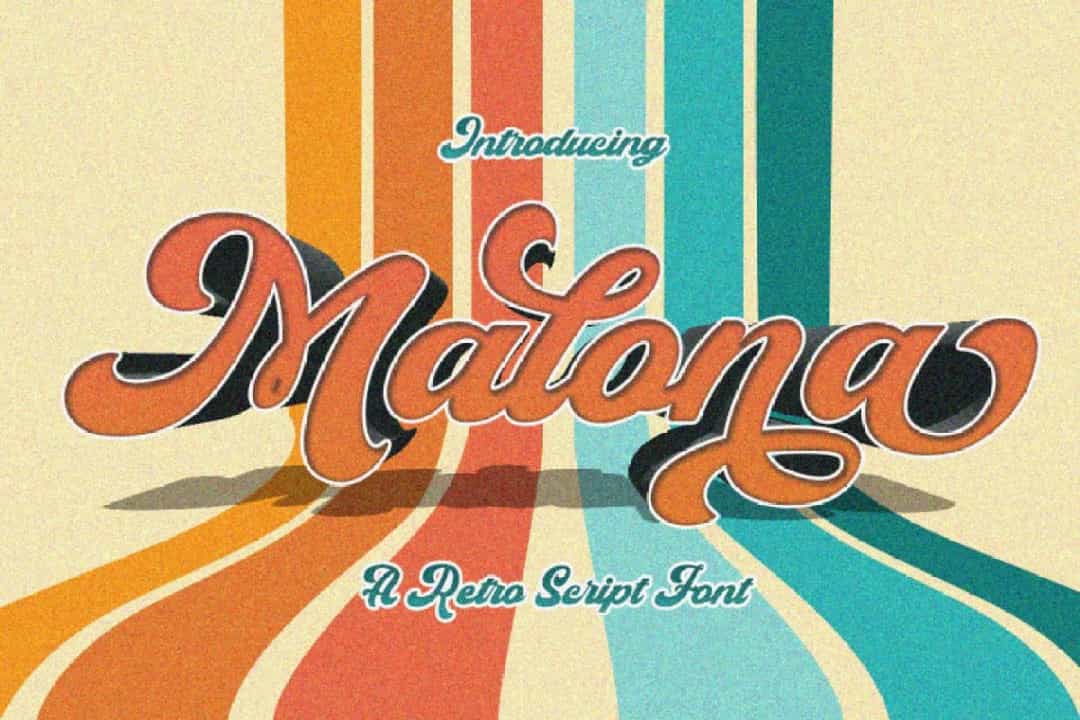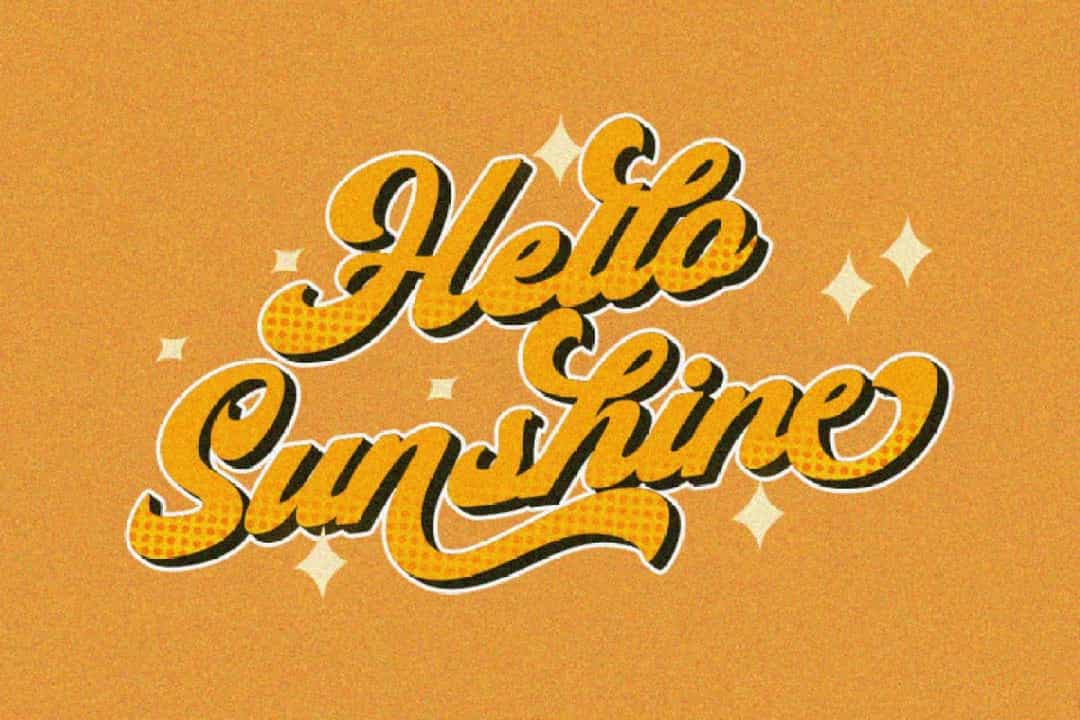
Malona can be described as a retro and vintage hand-drawn script font that’s ideal for designing logos, branding materials, stickers posters shirts signs quotes Instagram posts Procreate designs and more!